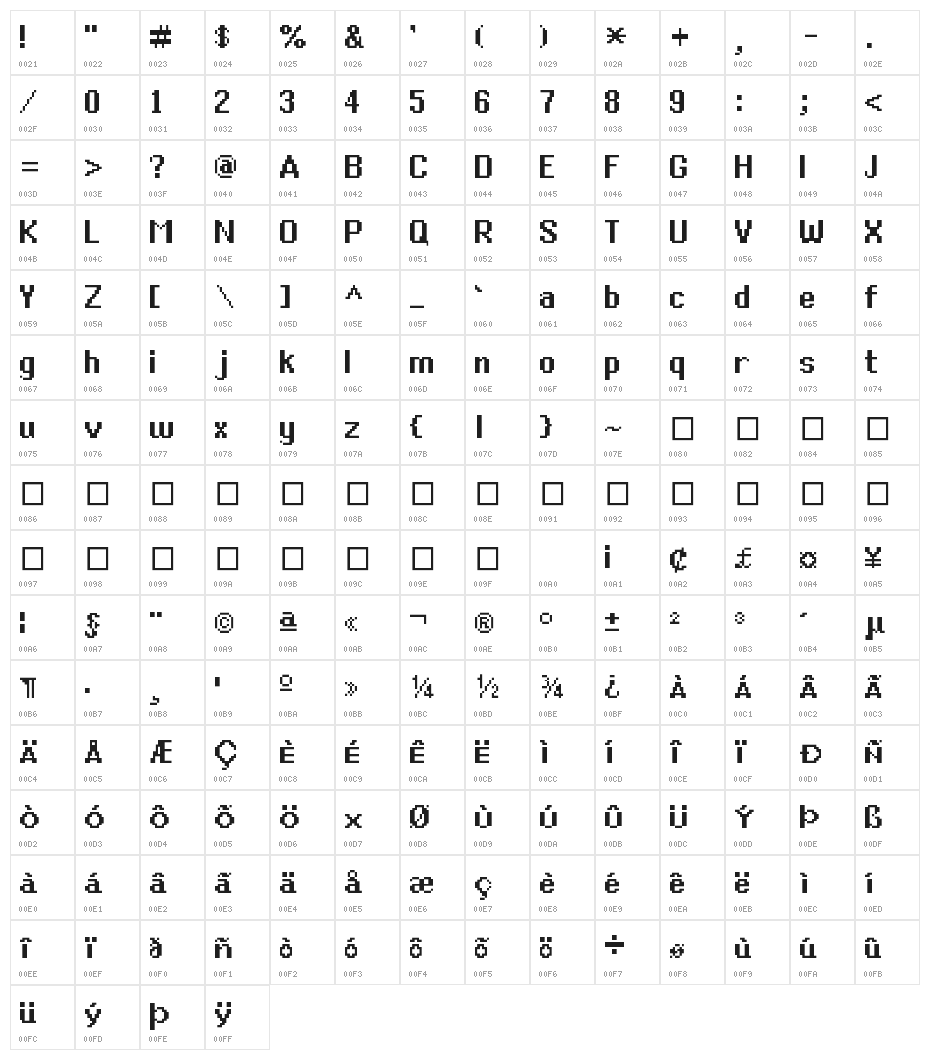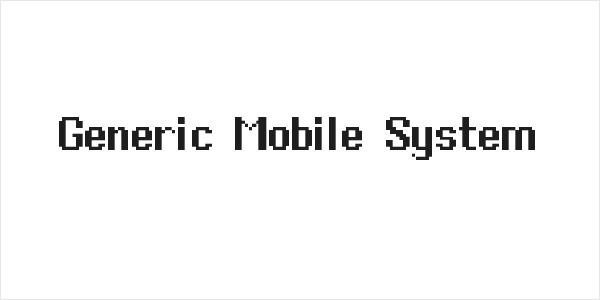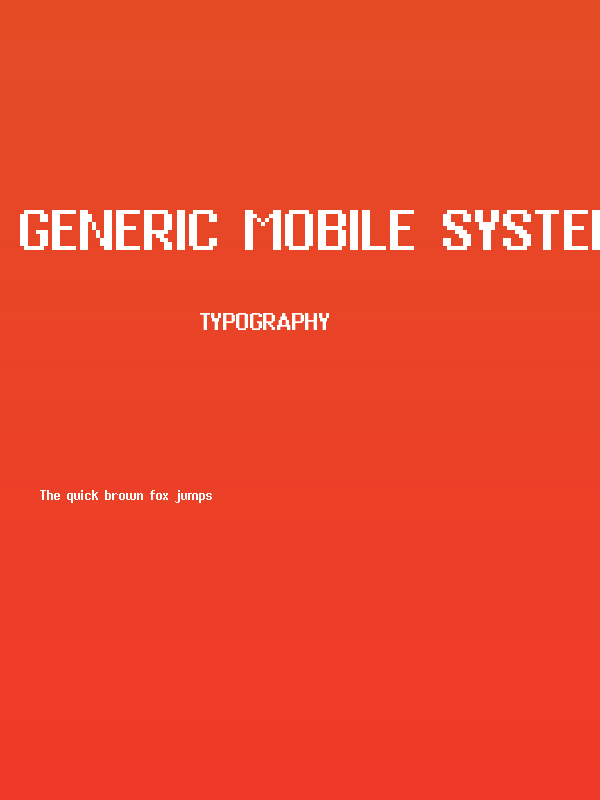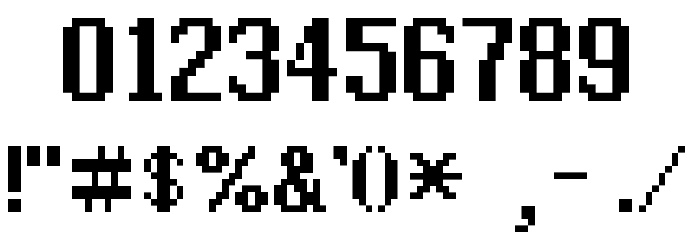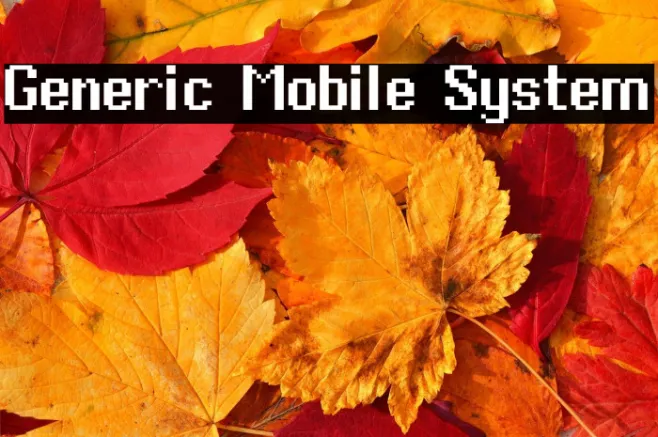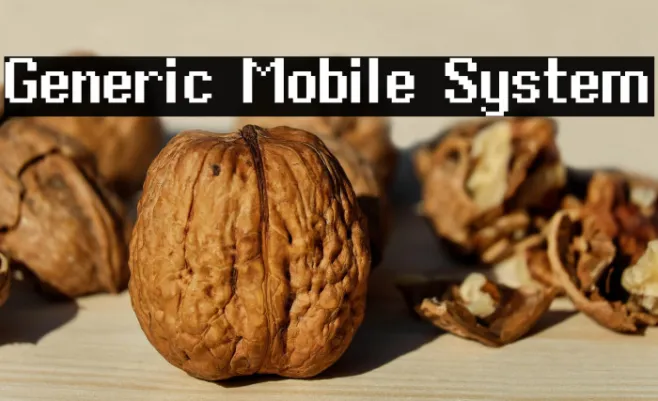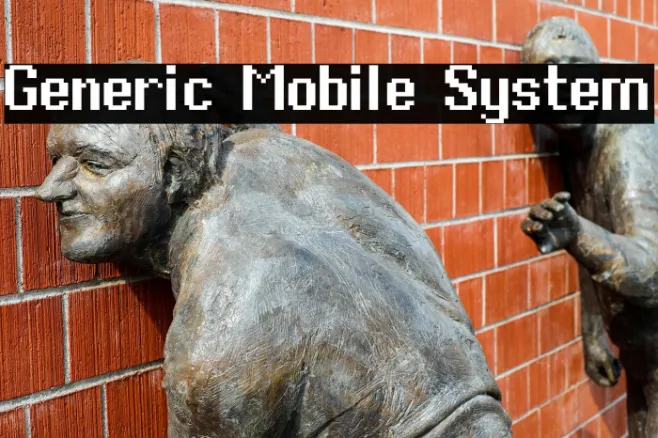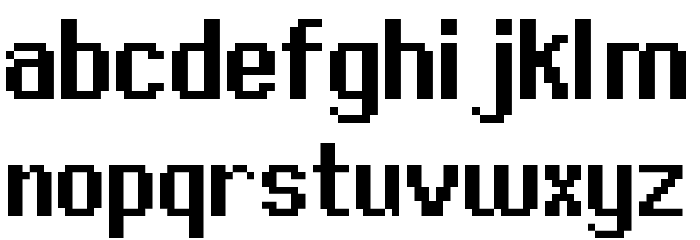
Generic Mobile System Font
Generic Mobile System Description
This font features a pixelated, blocky design reminiscent of early digital displays and video game graphics. Each character is constructed with a uniform grid-like structure, giving it a distinctly retro and technological appearance. The uppercase and lowercase letters maintain a consistent height, contributing to a cohesive look. The numerals and special characters follow the same pixelated style, ensuring uniformity across all glyphs. This font's bold and geometric nature makes it ideal for projects that aim to evoke a sense of nostalgia or digital aesthetics.
| Use Case | Headlines, Logos, Digital displays |
| Proposed Projects | Ideal for retro video game designs, digital-themed posters, and tech-related branding. |